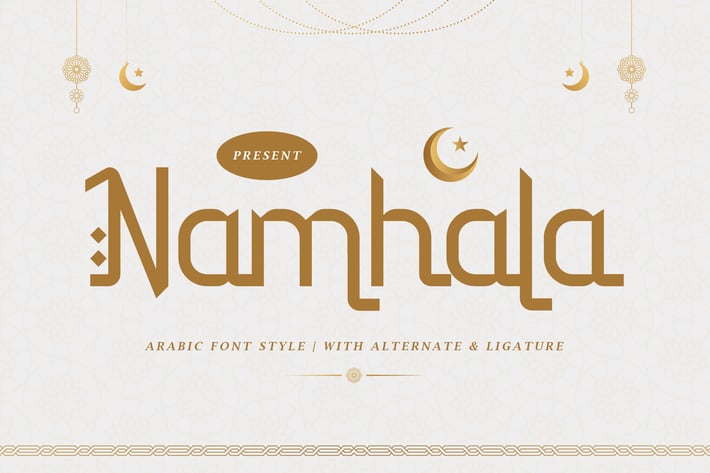
Namhala - Arabic Font tyle
Introducing "Namhala" - an exquisite Arabic font style that captures the beauty and elegance of Arabic calligraphy, perfect for adding a touch of sophistication to your designs.
With its intricate details and graceful curves, "Namhala" offers versatility and authenticity, making it ideal for branding, editorial layouts, signage, and more.
Embrace the rich heritage of Arabic typography with "Namhala" as it effortlessly enhances your designs with its timeless charm and cultural resonance.
Step into the world of Arabic calligraphy with "Namhala" and let your designs speak volumes with its captivating beauty.
– Lowercase
– Ligature
– Alternate
– Multilingual Support